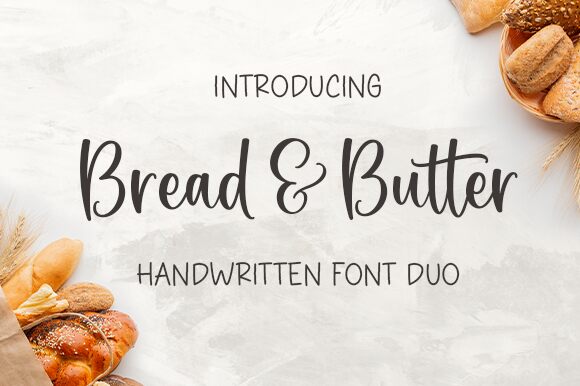
Bread And Butter
Dive into the whimsical charm of 'Bread And Butter,' a handwritten font duo meticulously crafted by Graphix Line Studio.
With its semi-light weight and pairing of script and sans fonts, this typeface offers a seamless blend of elegance and playfulness. It's the perfect choice for designers seeking to infuse their projects with a handcrafted aesthetic that resonates with warmth and authenticity. Whether you're creating heartfelt invitations, branding materials, or custom merchandise, Bread And Butter brings a bespoke quality that elevates your work with its delightful character and versatile appeal.
Embrace this font's potential to make your creative endeavors stand out with its unique blend of casual sophistication and inviting personality.